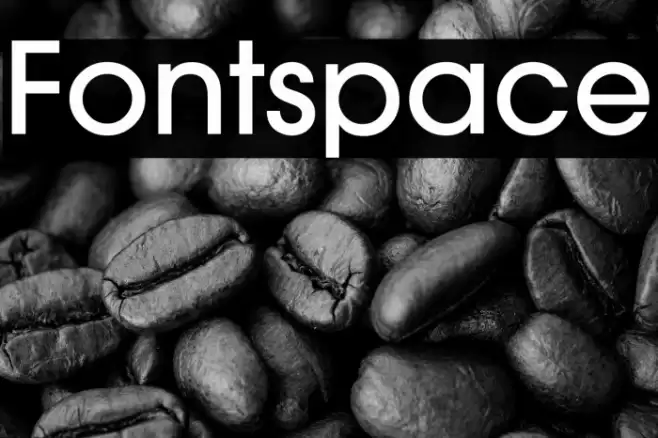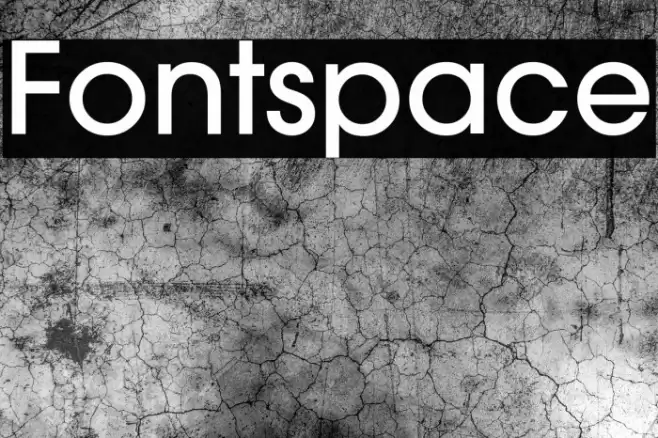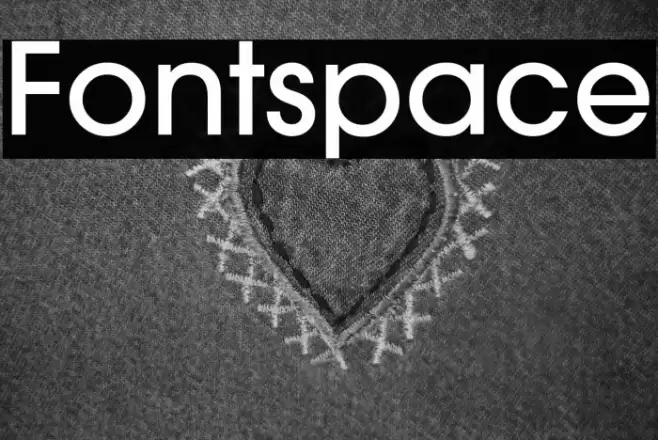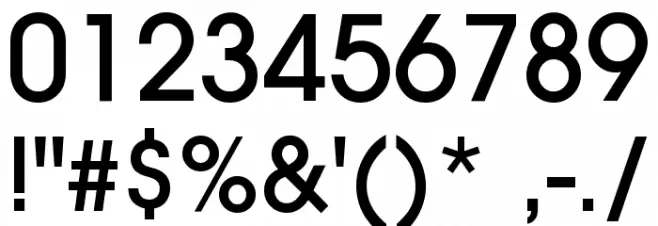
Fontspace Font
Fontspace Description
This font features a clean and modern sans-serif style with uniform stroke widths and a geometric structure. The characters are well-balanced and evenly spaced, providing excellent readability. The uppercase letters are bold and assertive, while the lowercase letters maintain a consistent flow. Numbers are clear and distinct, making them suitable for various applications. Special characters are designed with simplicity in mind, enhancing the font's versatility. The overall appearance is sleek and professional, making it ideal for contemporary design projects.
A modern, geometric sans-serif font with clean lines and excellent readability from Uncategorized fonts.
- Proposed Projects: Ideal for branding, web design, advertising, and editorial layouts.